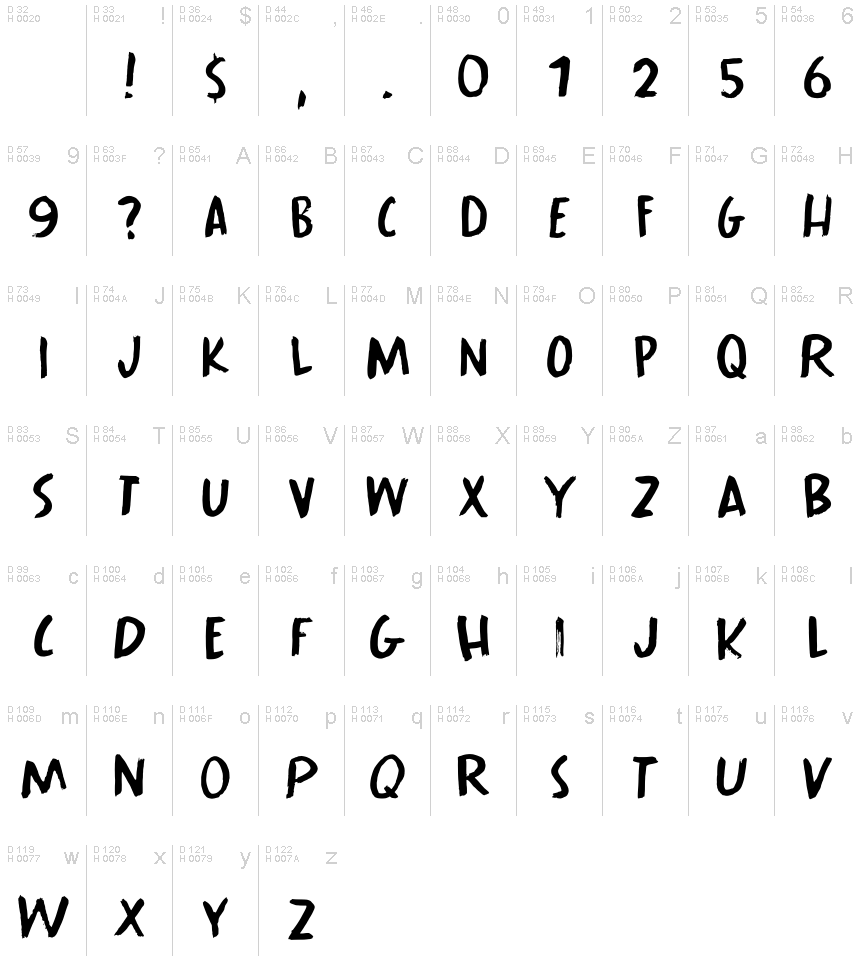
Bouteilles DEMO Regular
Bouteilles font, crafted by Hanoded, is a striking bold brush typeface that exudes artistic flair and spontaneity. Its flowing strokes capture the eye with a dynamic energy, making it perfect for projects seeking a lively and expressive look. The irregularities in its design give it an authentic hand-drawn feel, setting it apart from more conventional fonts.
Perfect for use in creative branding, package design, or attention-grabbing headlines, Bouteilles adds character and depth to any visual project. As a free font available for download, it's an excellent choice for designers looking to inject personality and charm into their work. Whether you're crafting posters or digital content, this typeface’s unique style will bring your ideas to life with bold elegance.